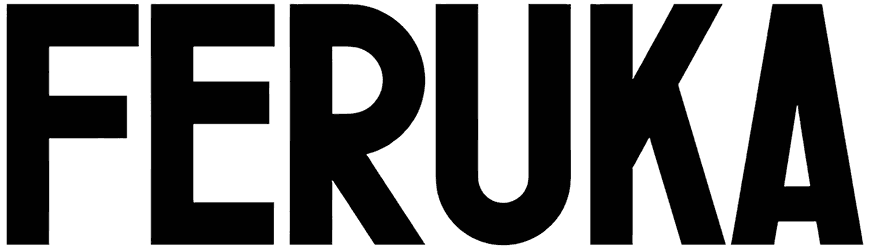
Feruka Font
Feruka is a classic and sans serif font with high contrast that always maintains its powerful appearance in both simple backgrounds and busy designs. This Bauhaus font does not include small letters and numbers, but it can attract a lot of attention on the cover of magazines, books, and newspaper headlines.
Therefore, if you want to be in the viewer’s mind as an established and reliable brand, Feruka can create the impression you want in any design.